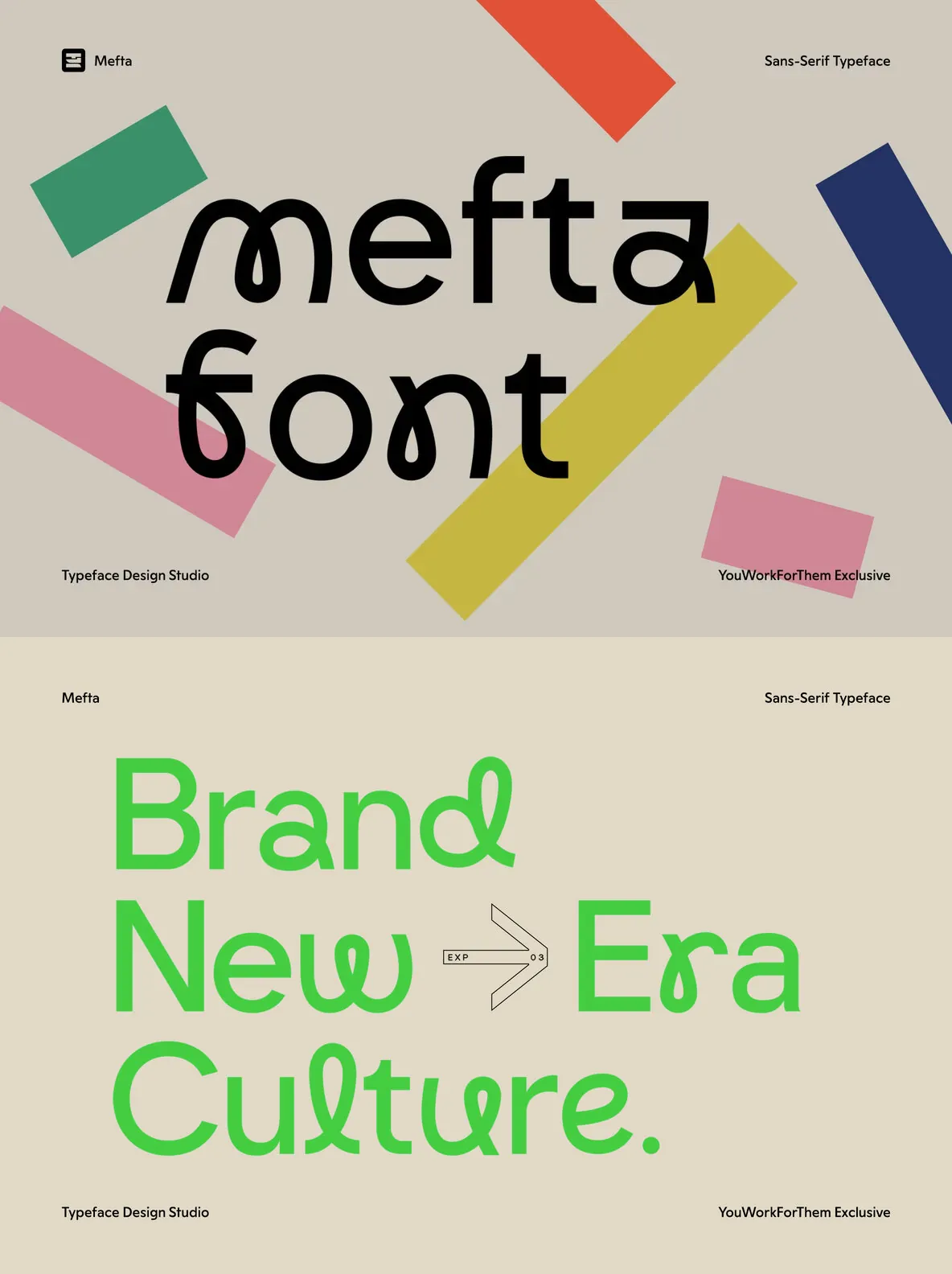
Mefta: Geometric Hybrid Sans with Experimental Flair
Mefta is a minimalist sans serif that defies convention. This typeface melds clean, geometric design with unexpected elements like looped terminals, custom ligatures, and unique alternates, offering a fresh perspective while maintaining readability.
Ideal for Digital and Print Applications
Web design and technology platforms
Editorial layouts and magazines
Contemporary branding and creative advertising
With its alternate characters, easily accessed through Font Book or Character Map, Mefta supports multilingual Latin scripts, making it a reliable choice for international design projects.